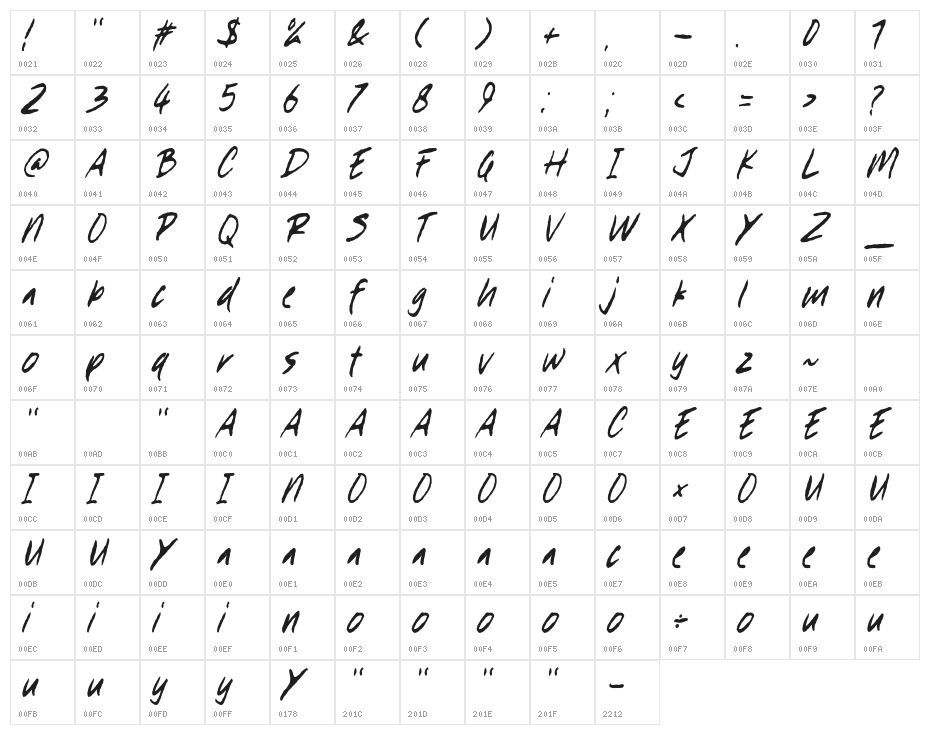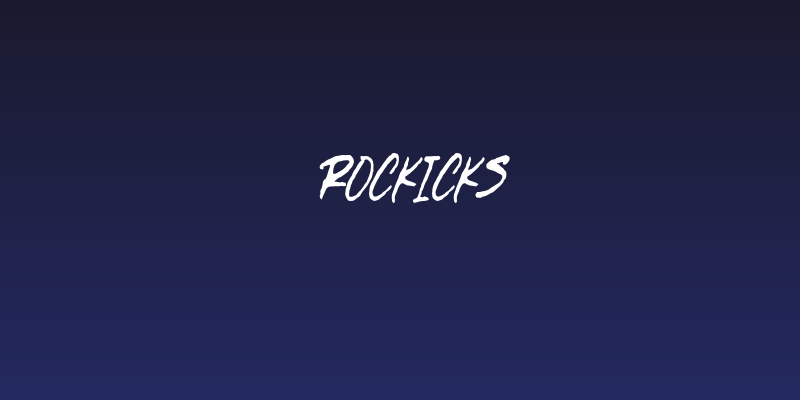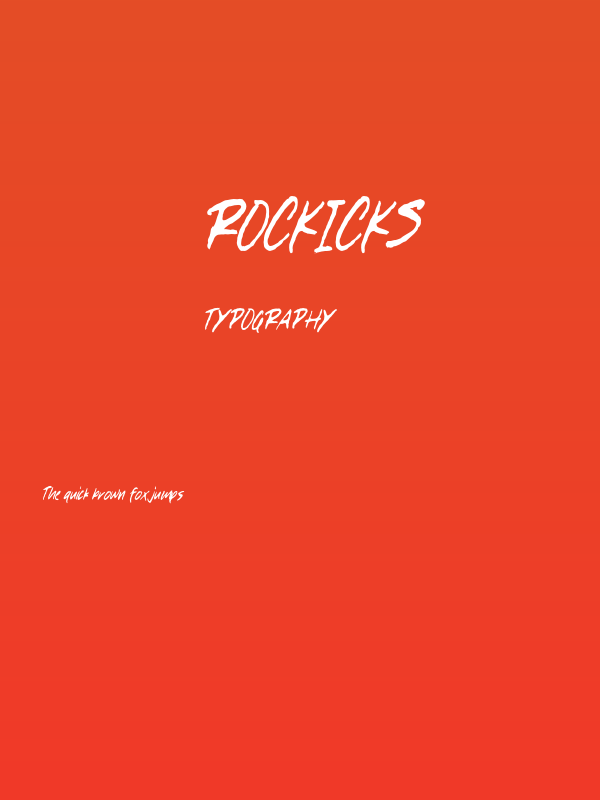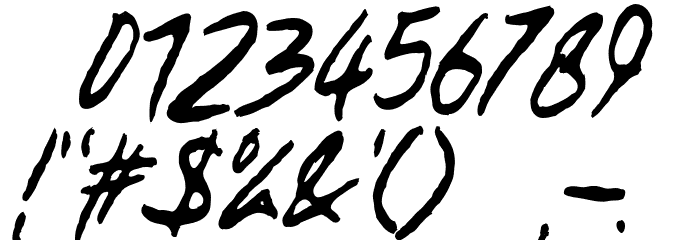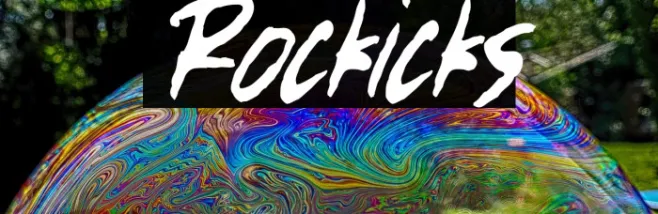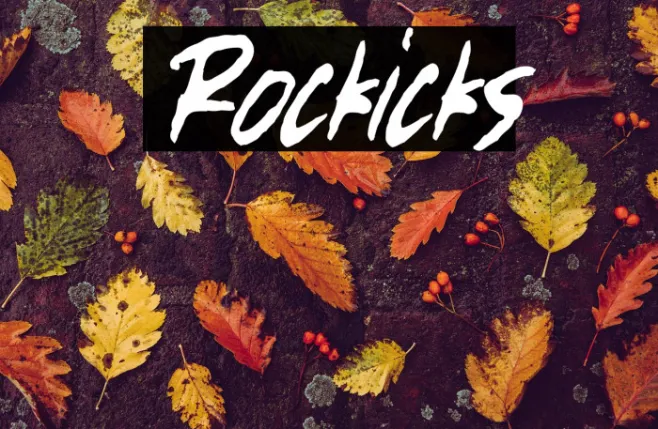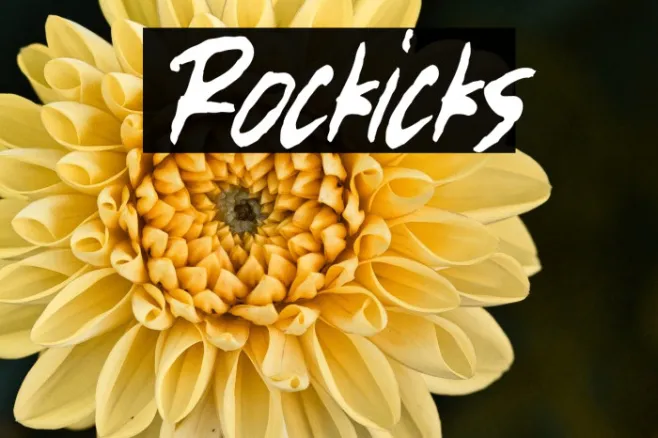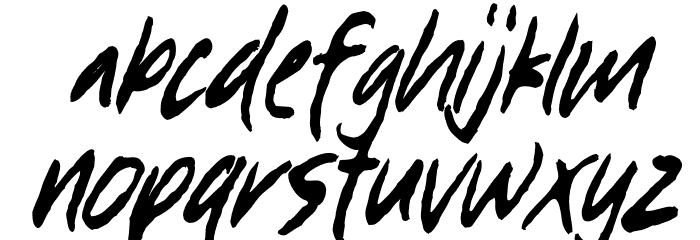
Rockicks Font
Rockicks Description
This font exhibits a dynamic and energetic handwritten style, characterized by bold and expressive strokes. The letters are slightly slanted, giving a sense of movement and fluidity. The uppercase and lowercase letters maintain a consistent style, with a rough, textured appearance that adds a personal touch. The numerals and special characters follow the same aesthetic, ensuring uniformity across all glyphs. This font's unique style makes it stand out, perfect for projects that require a personal, informal, or artistic touch.
| Use Case | Logos, Headlines, Artistic projects |
| Proposed Projects | Ideal for creative projects such as posters, album covers, and artistic branding. |